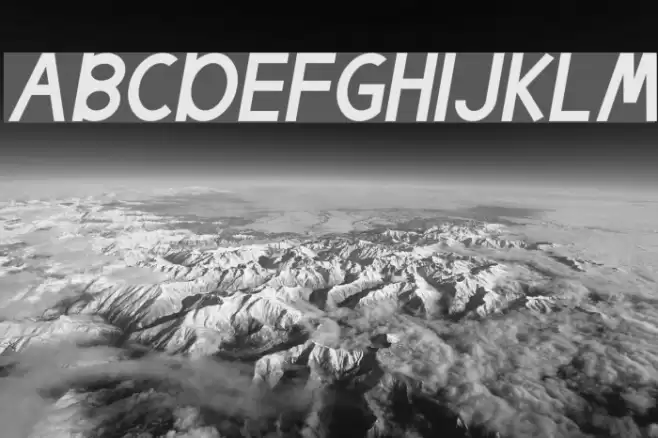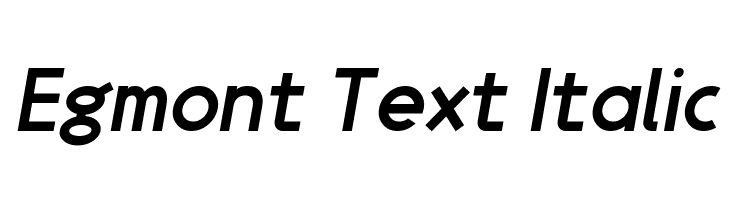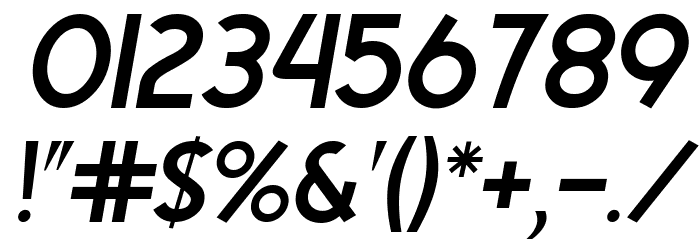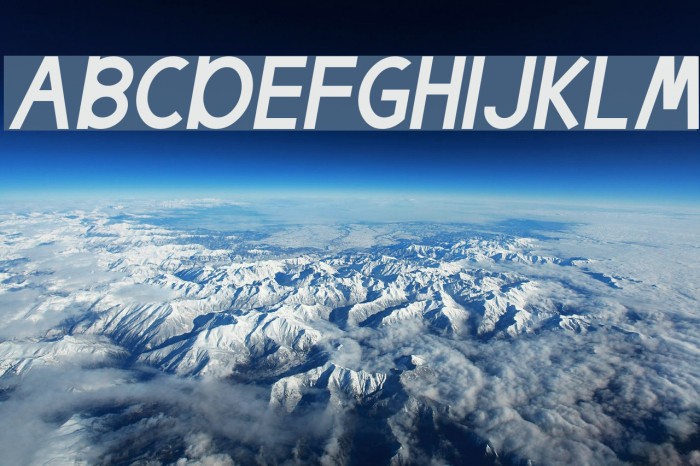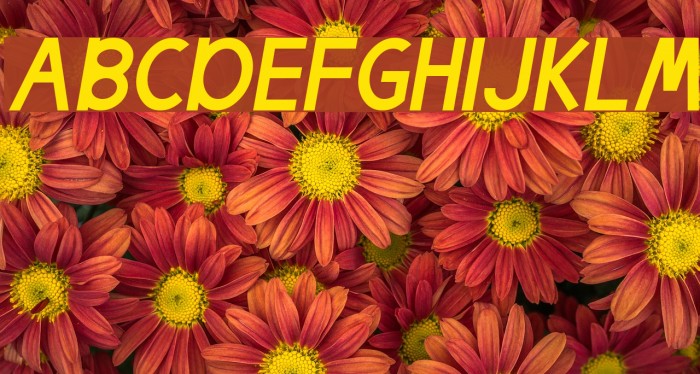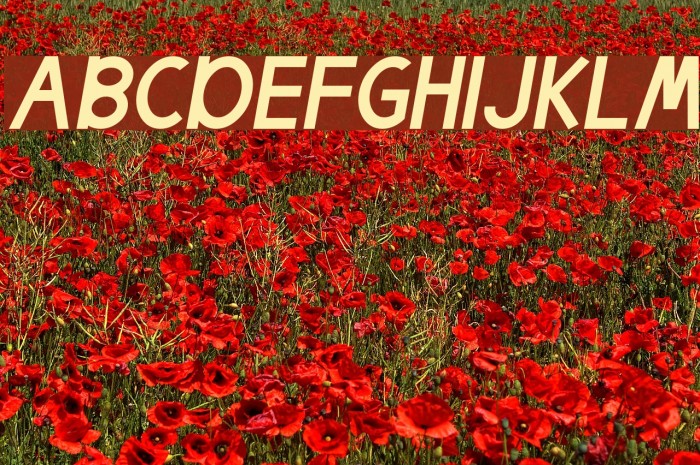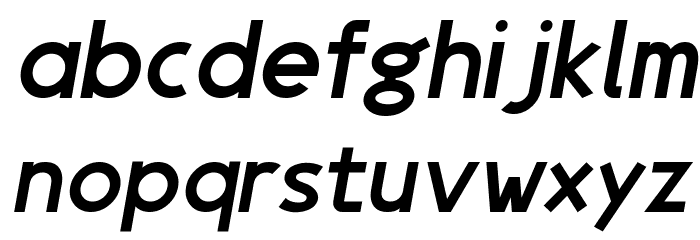
Egmont Text Italic Font
Egmont Text Italic Description
This font exhibits a clean and modern aesthetic with a slight italic slant, giving it a dynamic and forward-moving appearance. The characters are well-proportioned, with a consistent stroke width that maintains readability across various sizes. The uppercase letters are bold and assertive, while the lowercase letters maintain a friendly and approachable feel. The numerals are clear and distinct, making them suitable for both text and numerical data. The special characters are designed with the same attention to detail, ensuring they blend seamlessly with the rest of the typeface.
A modern, italic typeface with clean lines and a dynamic appearance from Uncategorized fonts.
- Proposed Projects: Ideal for branding, advertising, and editorial design where a modern and approachable look is desired.